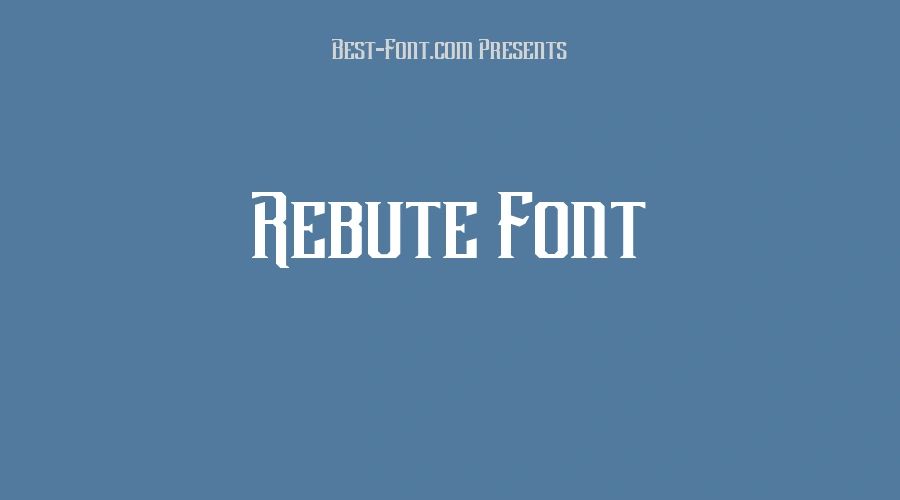
About Rebute Font
Rebute Font represents a sophisticated approach to type design, balancing balanced tension with optical harmony. Perfect for social media content, this font family showcases impressive reliability and creative impact throughout its character set. Designers appreciate its versatility and reliability.
Designers will appreciate nuanced touches including ligatures and historical accuracy, adding sophistication to any project. These features become apparent in brand statements, where consumer preference matters most. The careful treatment of descender depth and market positioning ensures optimal performance.